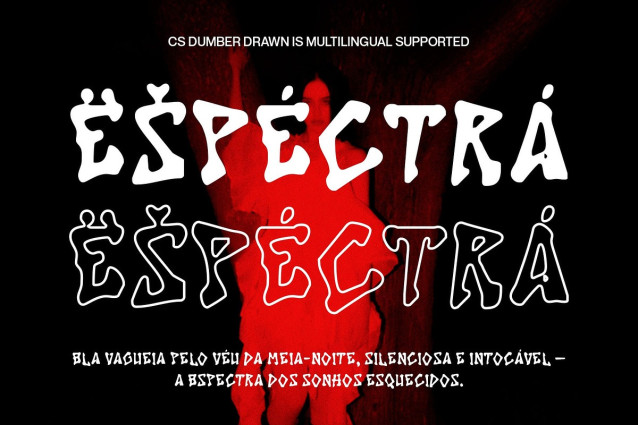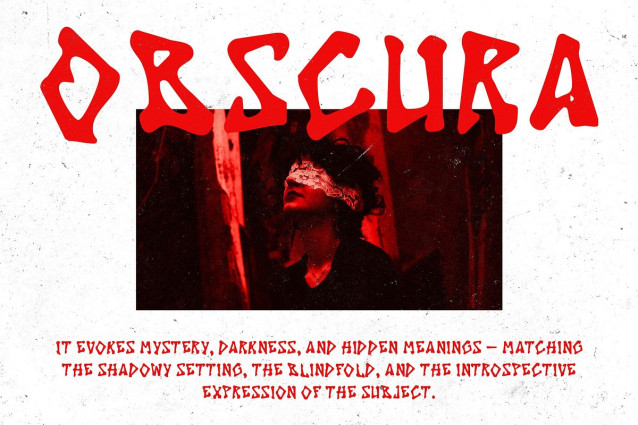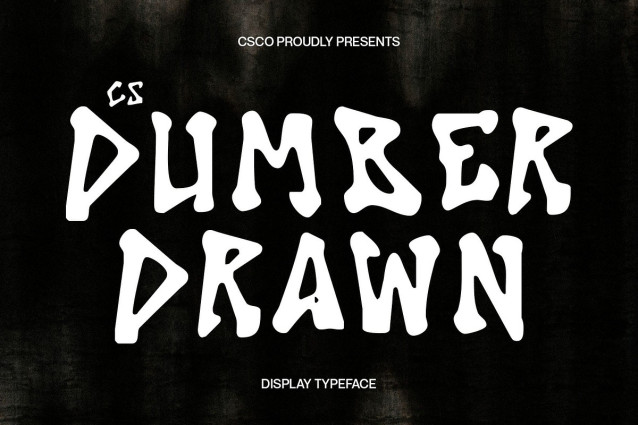
CS Dumber Drawn Font
CS Dumber Drawn Font – This is a heavy metal-inspired display font that combines bold, aggressive letterforms with a distinctive hand-drawn texture, evoking the rebellious spirit of underground music scenes. Every stroke feels raw and energetic, channeling the visceral energy of metal, punk, and hardcore visuals into a truly expressive typographic experience.
Loud, Gritty, and Full of Attitude Its drawn effect gives the typeface an authentic, handcrafted edge—perfectly imperfect, with rough contours that amplify the sense of movement and sound. The result is a design that looks as if it’s been scratched or scrawled with intensity, reinforcing its grunge, underground, and anti-mainstream roots.
Made for Noise and Impact This underground font thrives in environments that embrace chaos and creativity. Whether you’re designing concert posters, band logos, album artwork, or rebellious fashion branding, this font adds weight, texture, and energy. It’s not just a display font—it’s a visual scream.
Uncompromising Style for Bold Projects Ideal for creatives who want to push the limits, this typeface delivers an extreme, character-packed presence that can’t be ignored. Use it to create designs that demand attention and communicate a raw, untamed energy—perfect for music, streetwear, skate culture, or artistic rebellion.